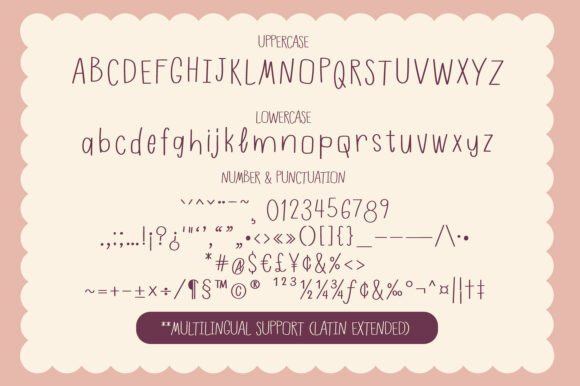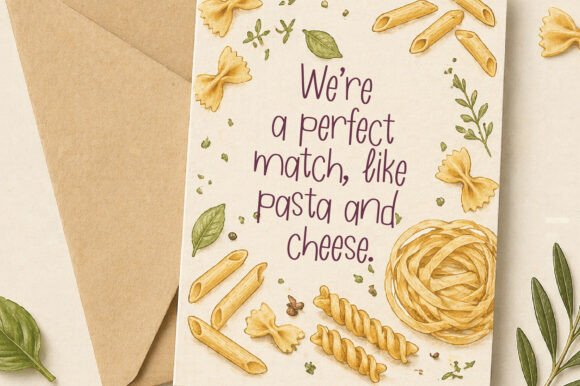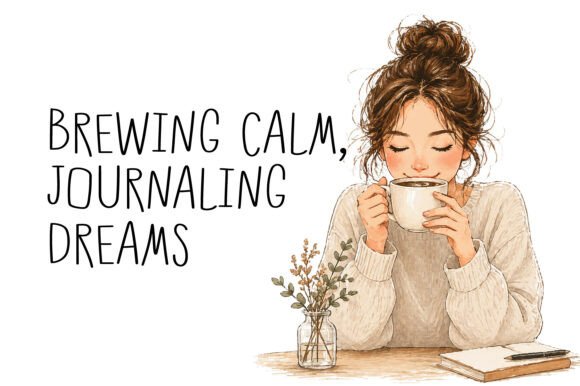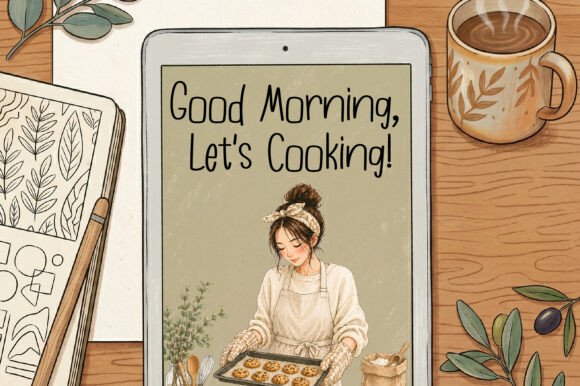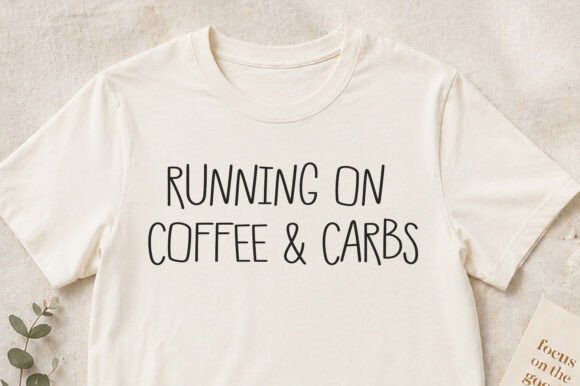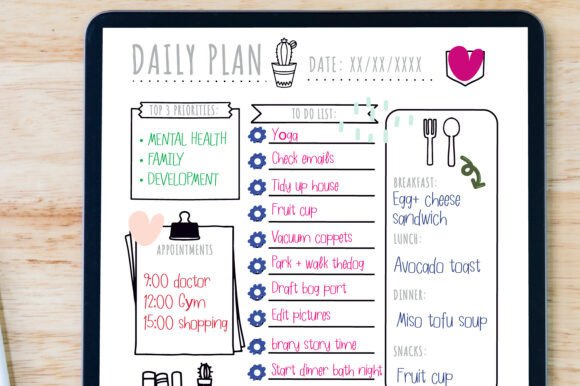
Introduction to Grissini Stick Font
Grissini Stick is a fun and playful handwritten display font designed to bring warmth and personality to your creative projects.
With its hand-drawn, bouncy style and soft textured feel, this font is perfect for branding, packaging, social media, and cozy lifestyle designs Whether youโre creating bakery branding, cute quotes, stickers, or digital planners, Crispy Breadstick adds a charming and friendly touch to every design.
Key Features of Grissini Stick Font
Why Choose Grissini Stick Font?
Grissini Stick Font offers exceptional quality and versatility, making it a valuable addition to your design toolkit. Whether you’re creating for personal projects or commercial use, Grissini Stick Font delivers professional results.